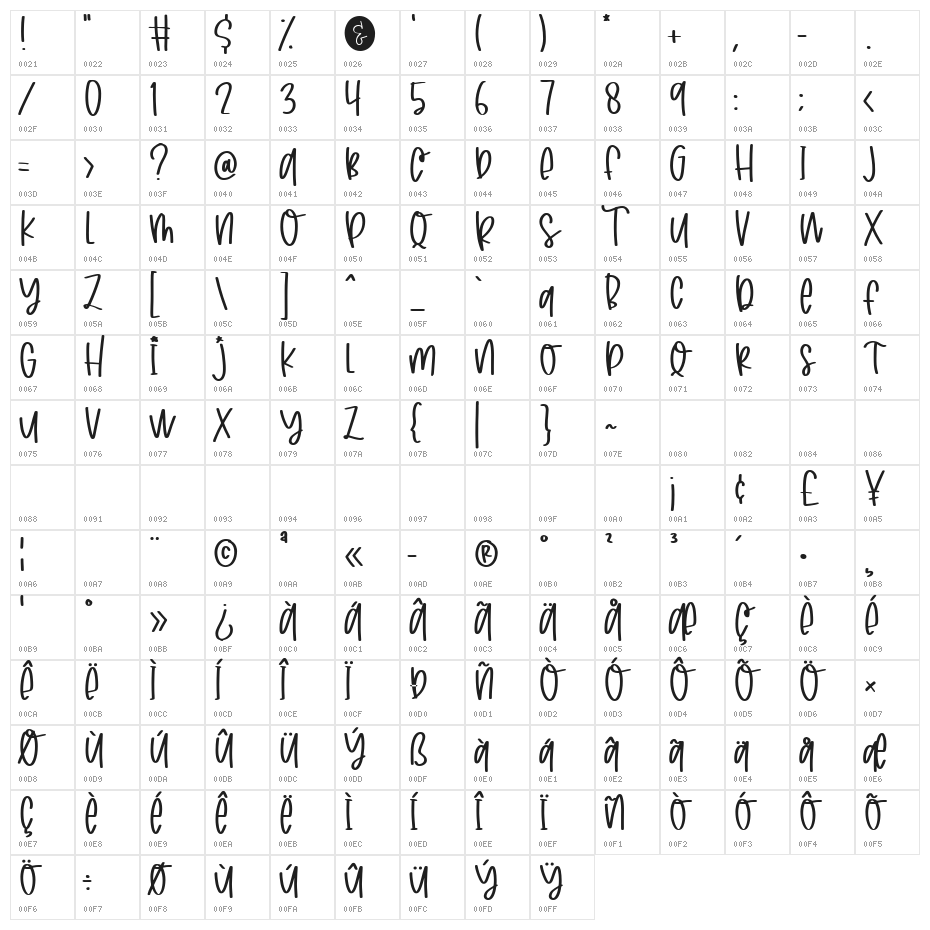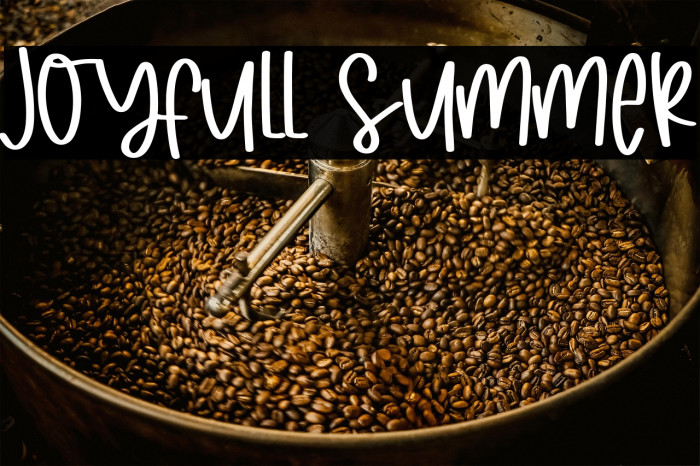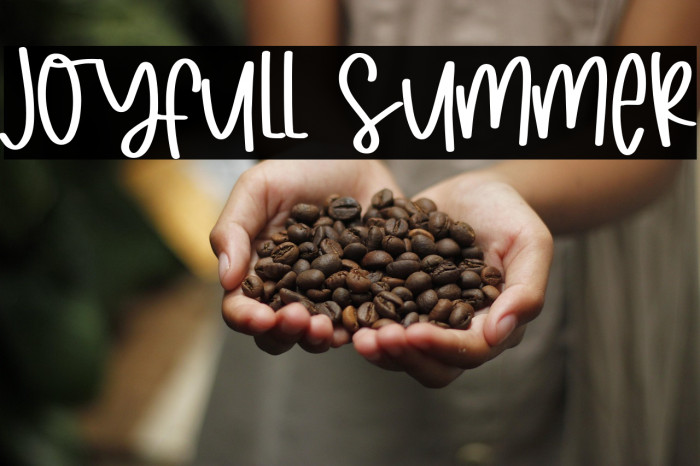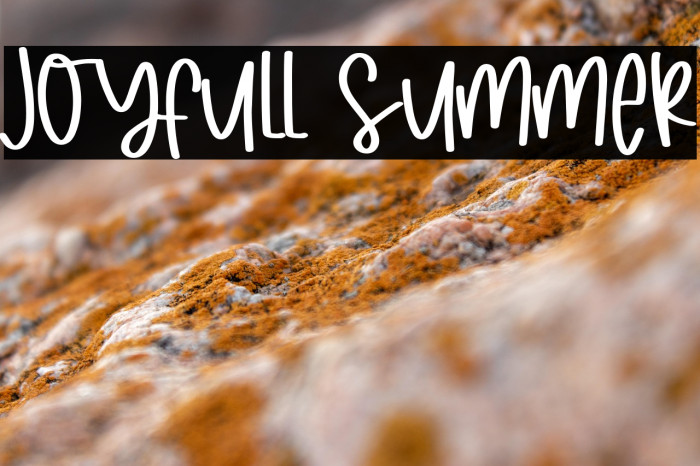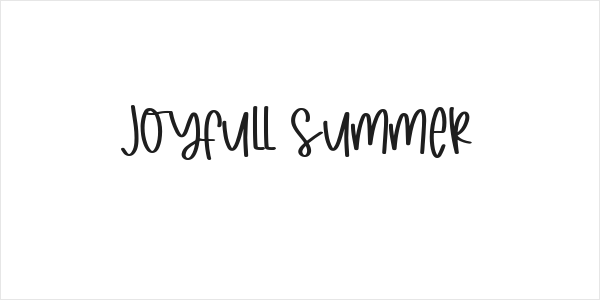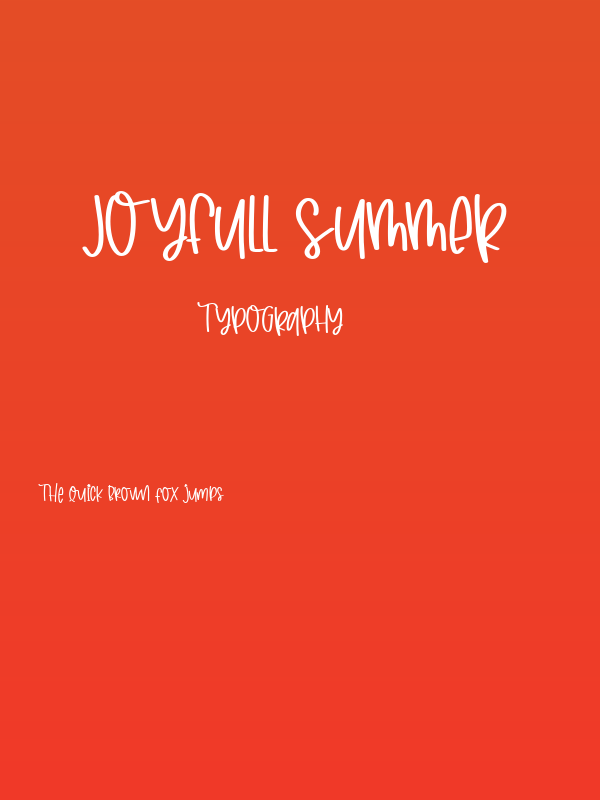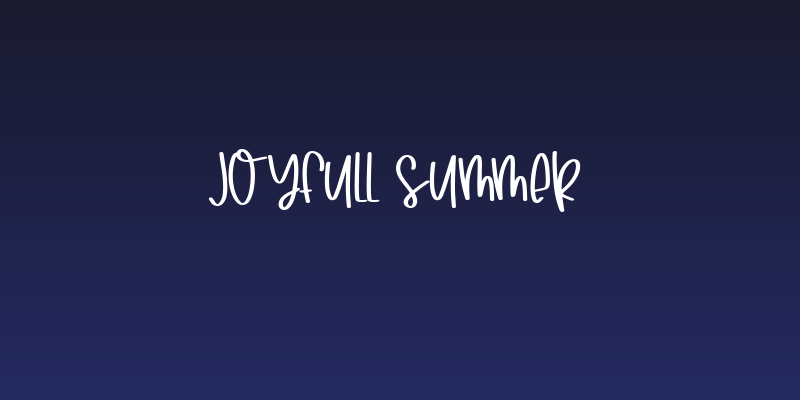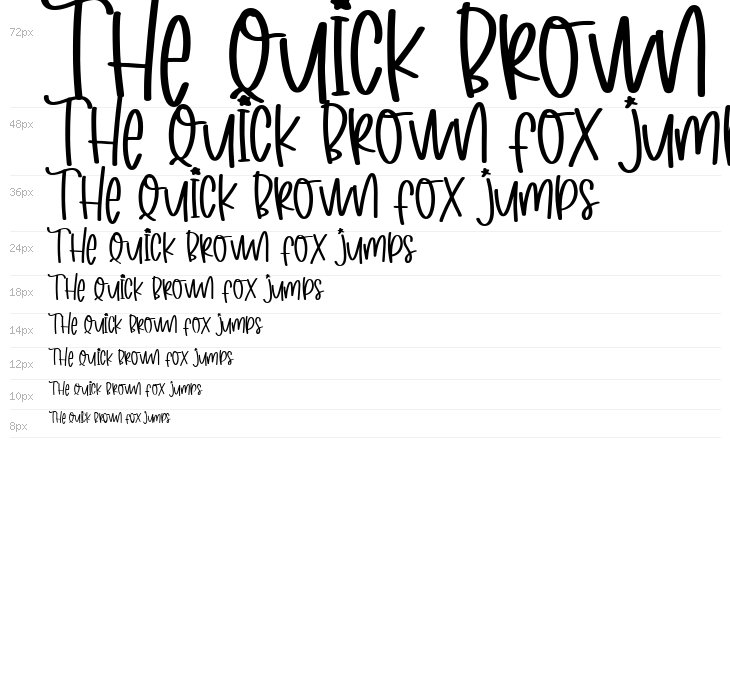
Joyfull Summer Font
Joyfull Summer Description
This playful and energetic font features a handwritten style with a casual and friendly appearance. The letters are slightly slanted, giving a dynamic and lively feel. The strokes are bold and consistent, with a smooth flow that mimics natural handwriting. The characters are well-spaced, ensuring readability while maintaining a whimsical charm. This font includes both uppercase and lowercase letters, numbers, and a variety of special characters, making it versatile for various design needs.
| Use Case | Logos, Headlines, Informal Invitations |
| Proposed Projects | Ideal for greeting cards, children's books, playful branding, and social media graphics. |